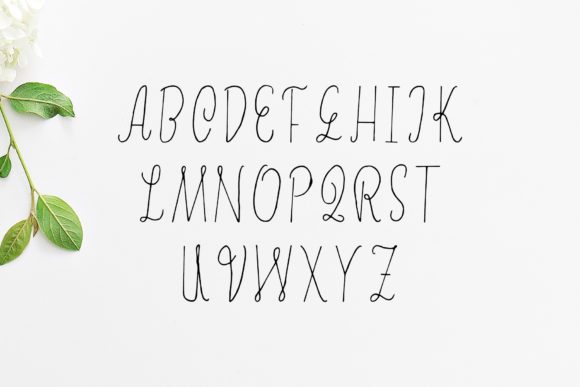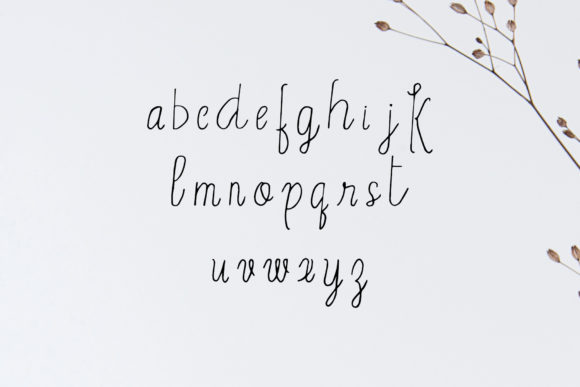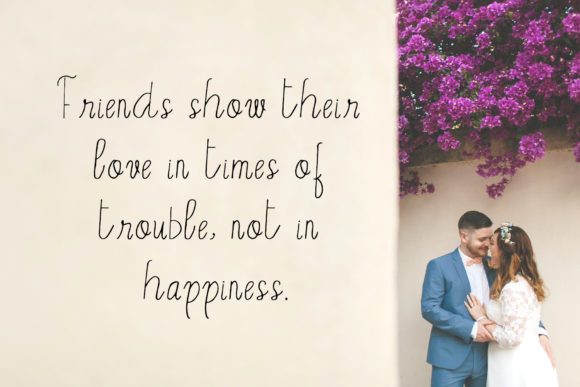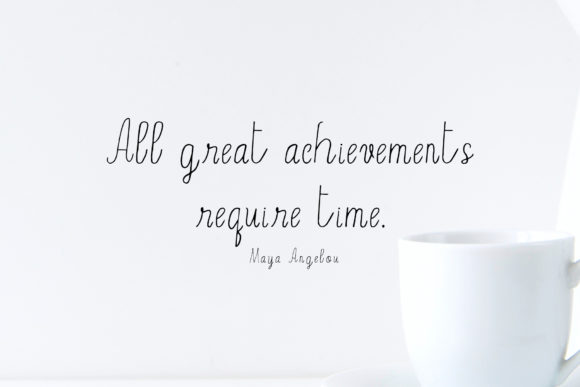
Erica Font: Elevate Your Design with a Beautiful Handwritten Style
In the world of typography, a font can make or break a design. For those who appreciate the elegance of handwritten styles, Erica Font is a stunning addition to any project. This beautiful and slim handwritten font is specially designed for minimal projects, making it an excellent choice for designers and crafters looking to add a touch of sophistication to their work.
What Makes Erica Font Stand Out?
Erica Font boasts a unique, elegant style that is both visually appealing and highly versatile. Its slim lines and fluid strokes give it a modern and clean look, perfect for a variety of applications. Whether you’re working on branding, personal notes, clean designs, websites, watermarks, or more, Erica Font is sure to impress.
Key Features of Erica Font
• Handwritten Style: Erica Font offers a beautiful, handwritten aesthetic that adds a personal touch to any project.
• Slim and Elegant: Its slim lines make it perfect for designs where you want to convey simplicity and sophistication.
• Versatile: Suitable for a wide range of projects, from branding and personal notes to websites and watermarks.
• Minimalist Design: Specifically crafted for minimal projects, ensuring your design remains clean and uncluttered.
Use Cases for Erica Font
The versatility of Erica Font makes it an excellent choice for various design projects. Here are some popular use cases:
• Branding: Use Erica Font to create elegant and memorable brand identities.
• Personal Notes: Add a touch of elegance to your personal notes or journals.
• Clean Designs: Perfect for designers who prefer a minimalist approach, Erica Font helps maintain a clean and modern look.
• Websites: Enhance your website’s typography with a font that is both readable and stylish.
• Watermarks: The subtle elegance of Erica Font makes it an excellent choice for watermarks, adding a professional touch without overpowering your images.
Tips for Using Erica Font Effectively
To get the most out of Erica Font, consider the following tips:
• Pair with Other Fonts: Combine Erica Font with other fonts for contrast and visual interest. It pairs well with bold sans-serif fonts.
• Adjust Line Spacing: For better readability, ensure adequate line spacing, especially when using it for body text.
• Experiment with Colors: While Erica Font looks great in black, don’t hesitate to experiment with colors to match your brand’s palette.
Font Name Erica Font
Author creativetacos
Erica Font is a beautiful and versatile handwritten font that can elevate your design projects with its elegant and slim style. Whether you’re a designer looking for a minimalist touch or a crafter aiming to add a personal touch to your work, Erica Font is an excellent choice. Its wide range of applications and ease of use make it a valuable addition to any creative toolkit.